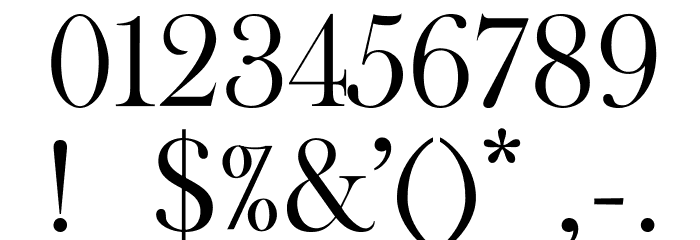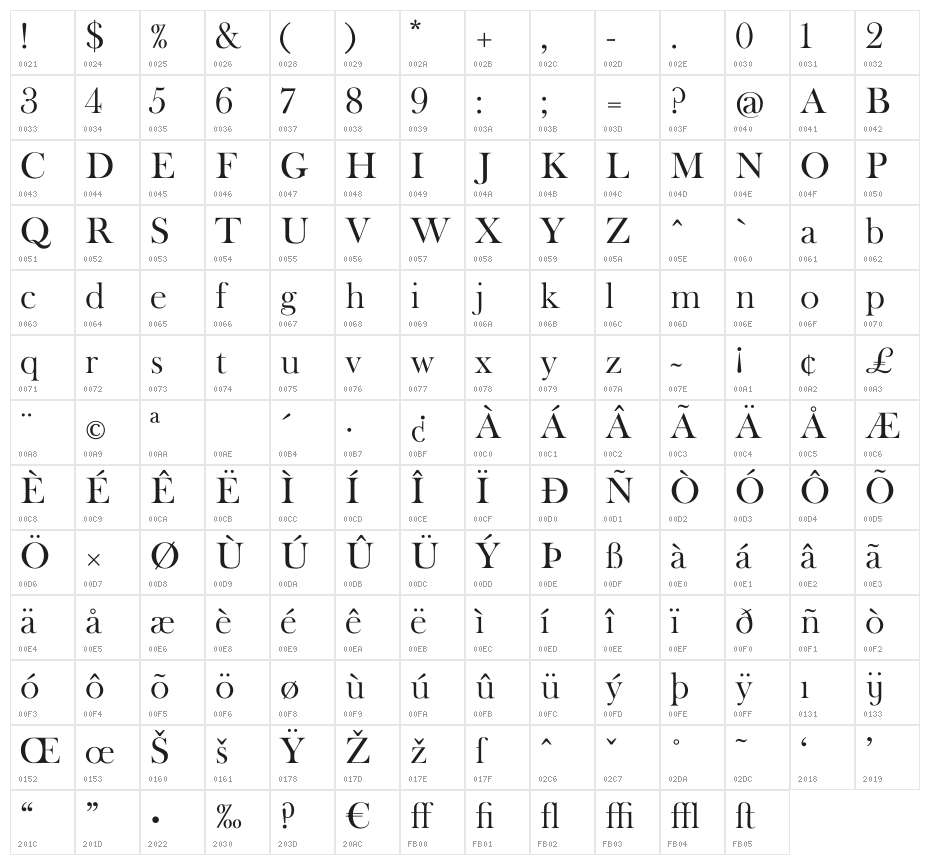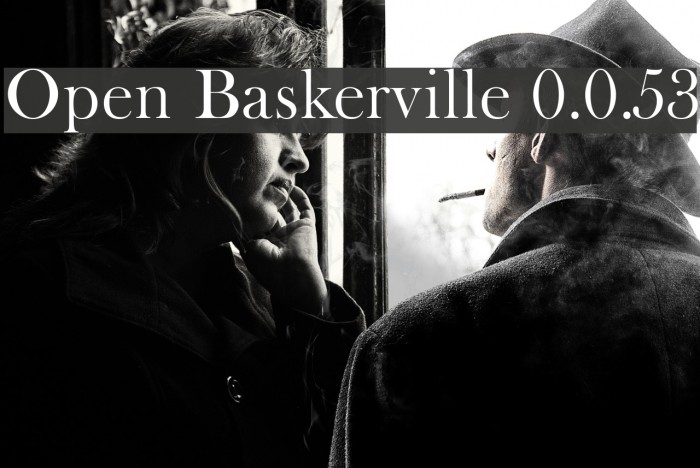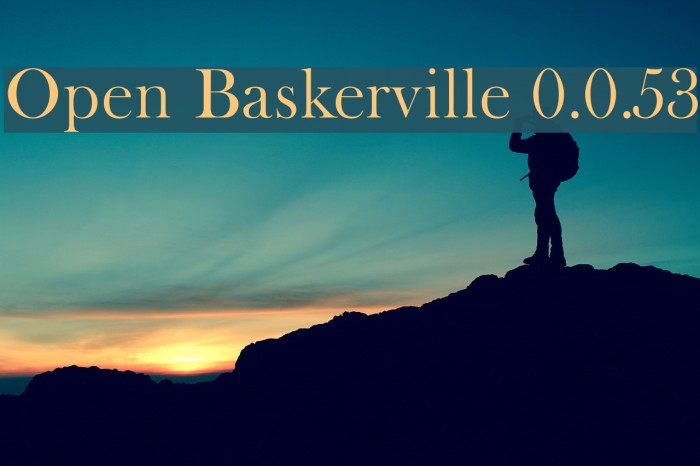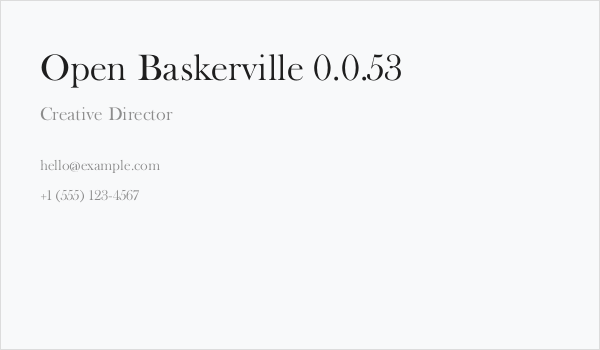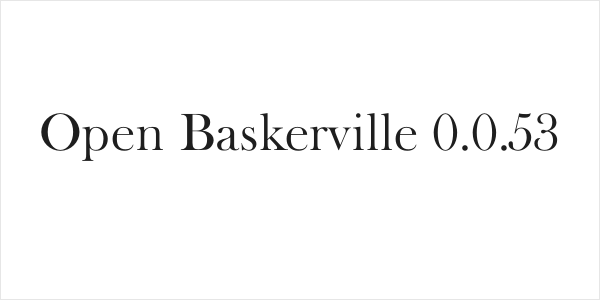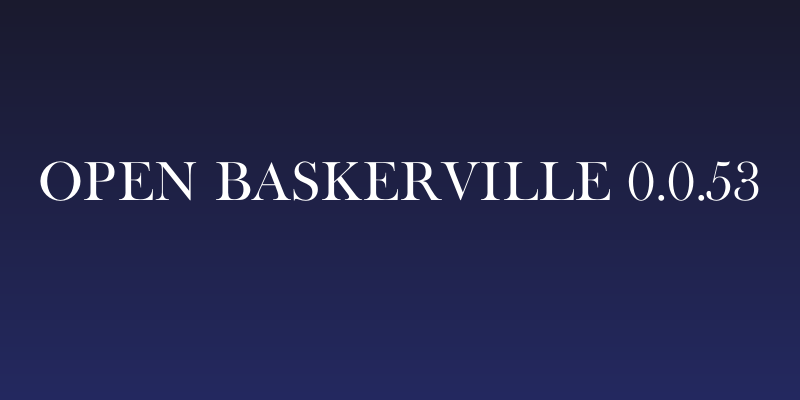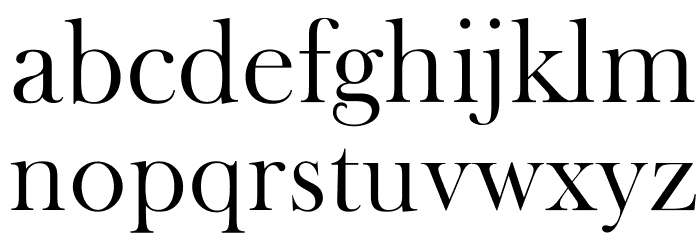
Open Baskerville 0.0.53 Font
Open Baskerville 0.0.53 Description
This font is a classic serif typeface characterized by its elegant and refined appearance. It features high contrast between thick and thin strokes, which adds a touch of sophistication and readability. The serifs are sharp and well-defined, giving the letters a crisp and clean look. The uppercase letters are stately and balanced, while the lowercase letters maintain a harmonious flow. The numerals are distinct and clear, making them easily legible. Special characters are thoughtfully designed to match the overall aesthetic, ensuring consistency throughout the typeface.